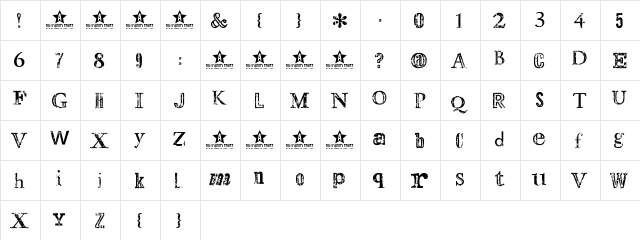
MAKEMEALPHA Copyright (c) 2009 by Billy Argel. All rights reserved. Regular Font Preview
| Foundry | Billy Argel |
| Designer | billy argel |
Design Context for MAKEMEALPHA Copyright (c) 2009 by Billy Argel. All rights reserved. Typeface
MAKEMEALPHA Copyright (c) 2009 by Billy Argel. All rights reserved. is a composed and adaptable typeface that performs quietly and consistently across a wide range of design contexts.